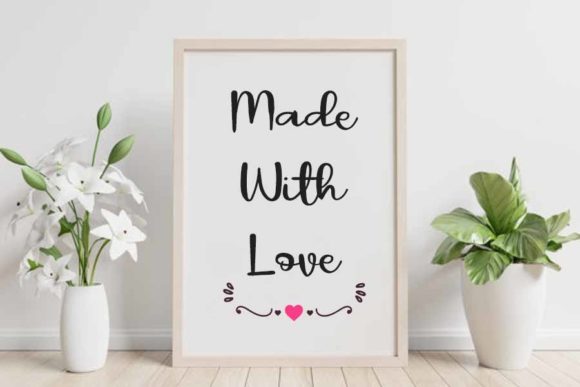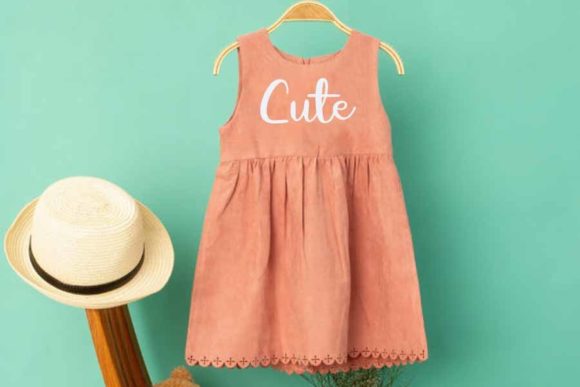
Alligator Font
db-ku.com - Script & Handwritten -- Alligator is a beautiful typeface. It has a feminine and elegant look which is great for logos, invitations and blogs, but can also be used to make a striking headline.